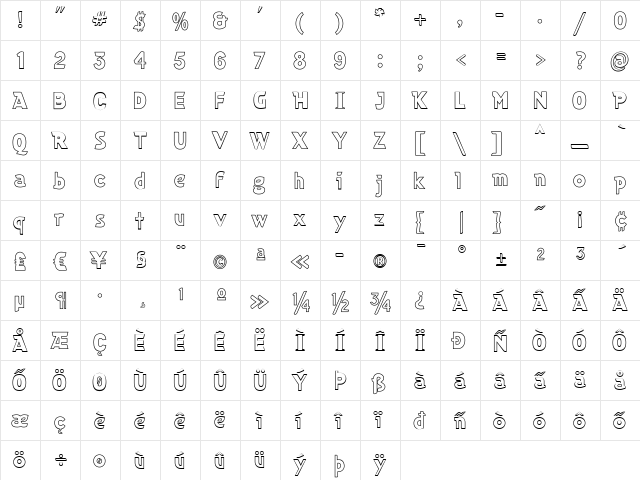
Cuban Medium Font Preview
Cuban Medium
Design Context for Cuban Typeface
Cuban is a composed and adaptable typeface that performs quietly and consistently across a wide range of design contexts.